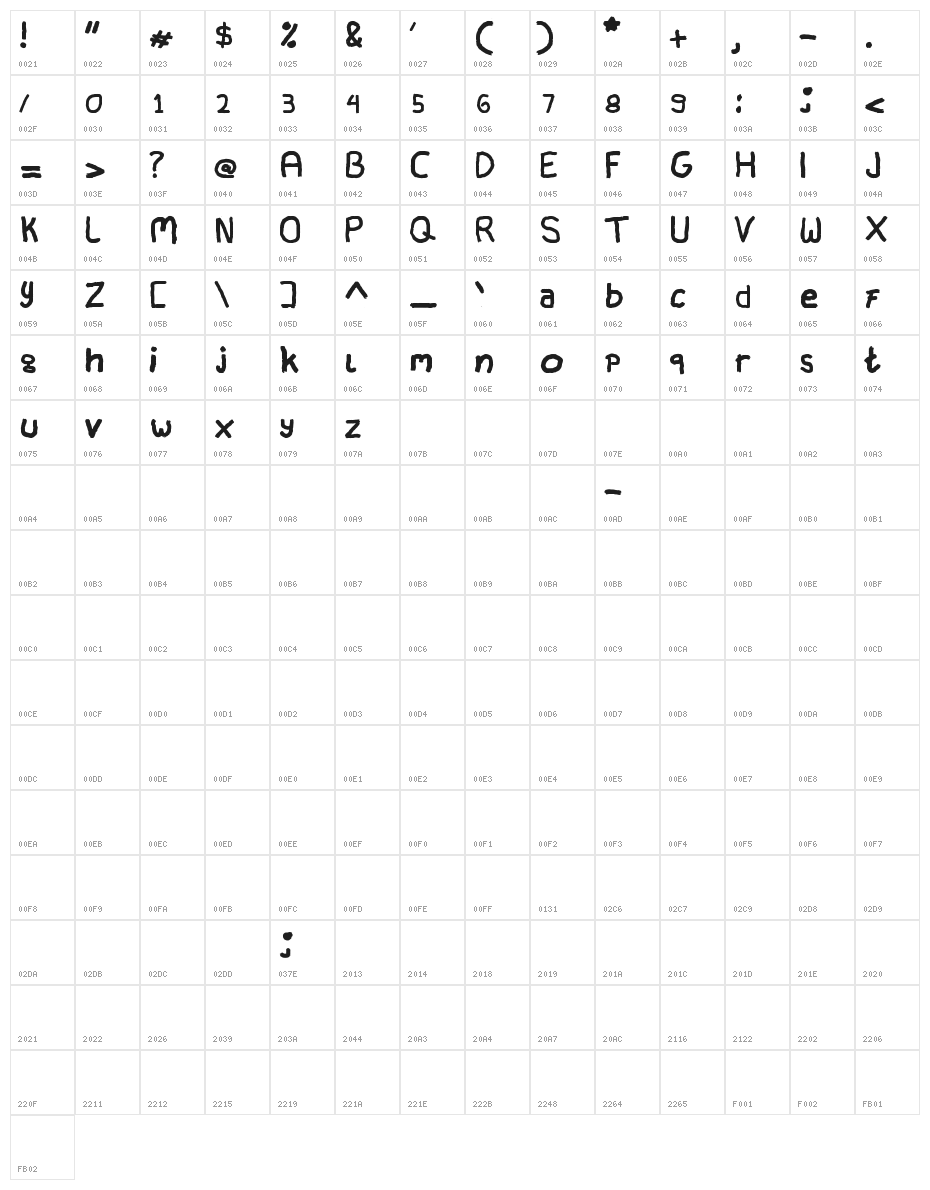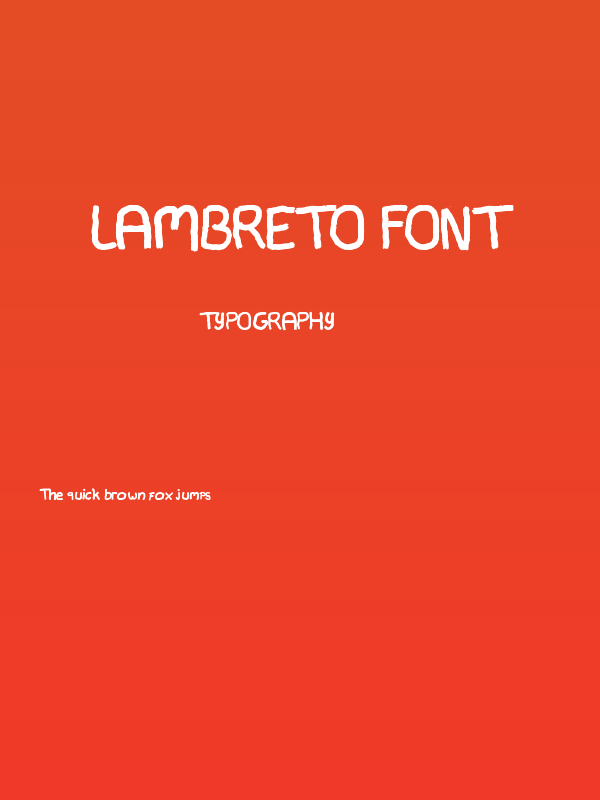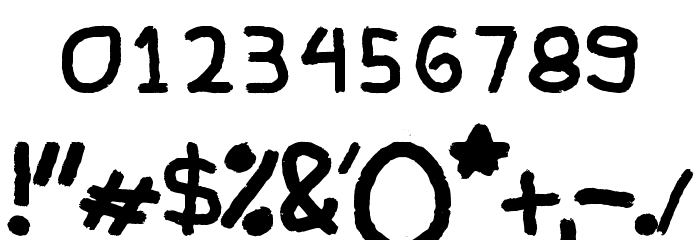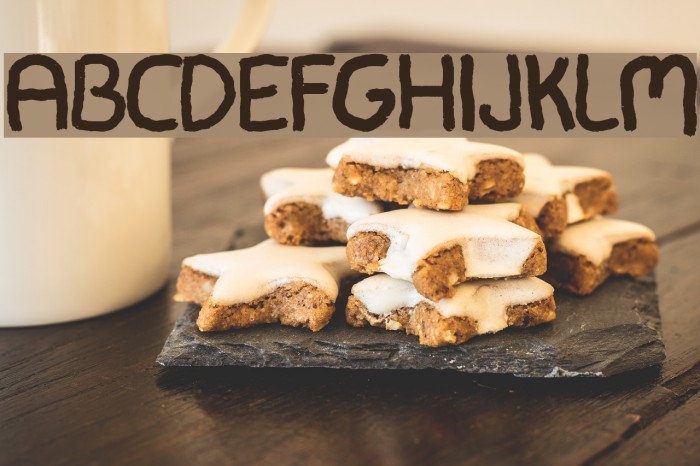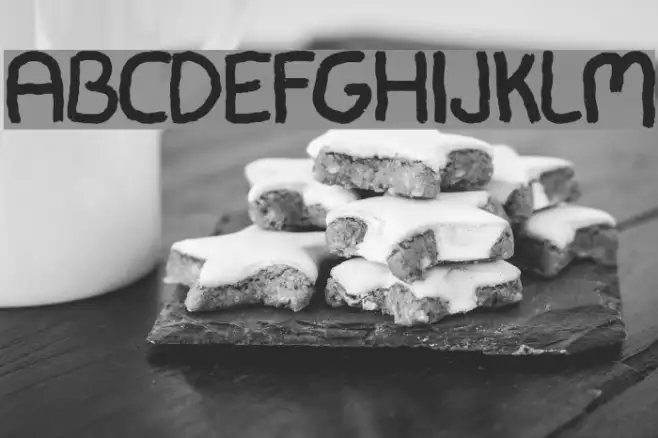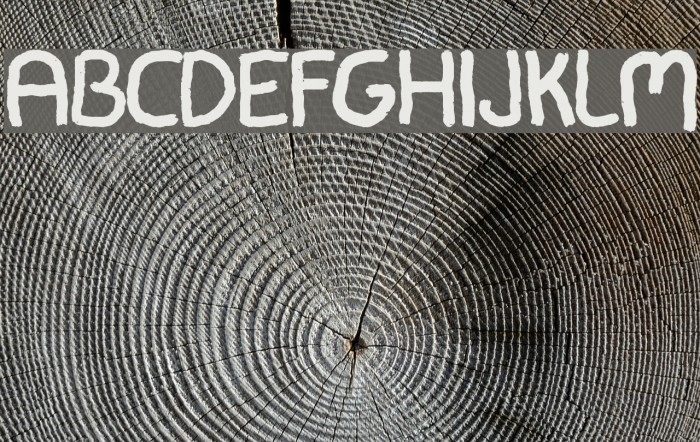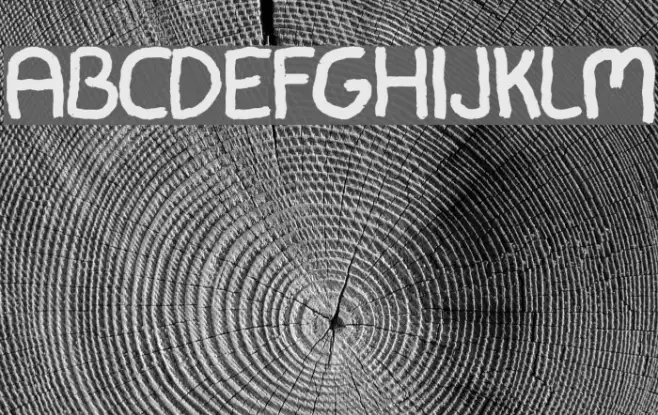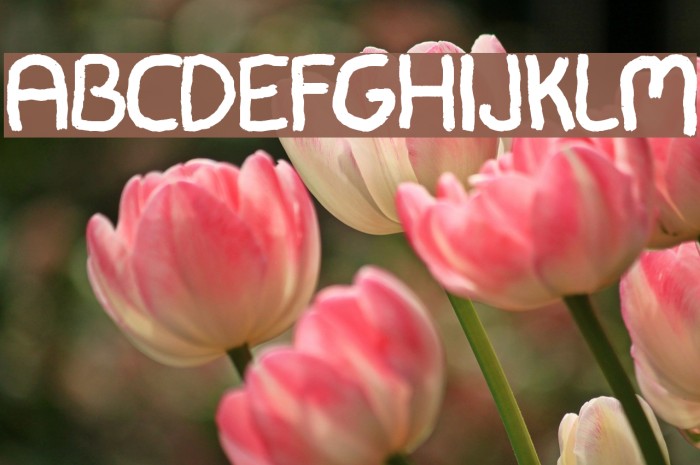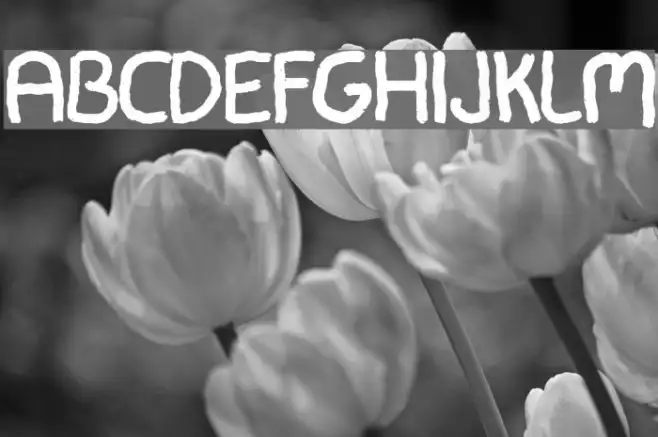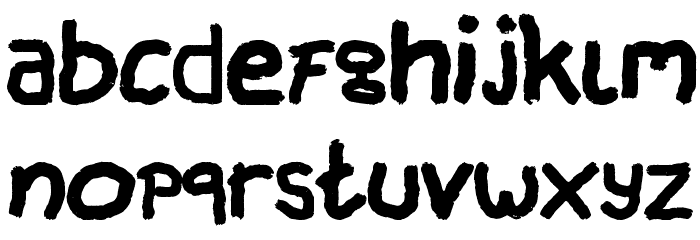
Lambreto Font Font
Lambreto Font Description
This font features a bold, hand-drawn style with a playful and artistic flair. The characters are irregular and organic, giving a sense of movement and creativity. The uppercase and lowercase letters maintain a consistent thickness, while the numbers and special characters follow the same whimsical design. The strokes are uneven, adding to the font's charm and making it ideal for projects that require a personal touch. Its unique appearance makes it stand out, perfect for creative and informal applications.
| Proposed Projects | Ideal for children's book covers, playful branding, artistic posters, and creative social media graphics. |